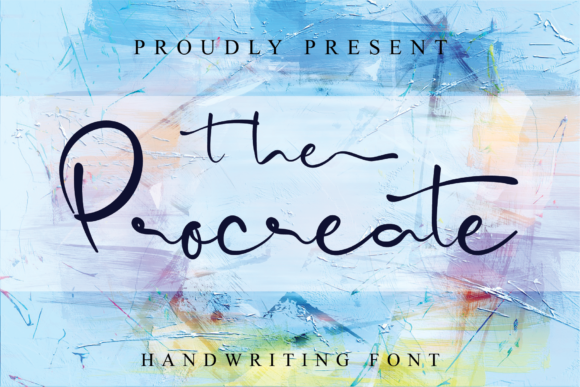
About The Procreate Font
The Procreate is a delightful and enchanting cursive script font that exudes a sense of sweetness, charm, and elegance. Its flowing and graceful letterforms captivate the eye and lend a touch of sophistication to any design. With its stylish alternates and ligatures, this font offers endless creative possibilities and versatility, making it the perfect choice for a wide range of projects.
Whether you’re working on wedding invitations, branding materials, logo designs, or any other creative endeavor, The Procreate will effortlessly elevate your work and add a touch of refined beauty. Each letter has been meticulously crafted to ensure a harmonious flow and impeccable readability.
The font’s extensive character set and stylistic variations provide ample opportunities for customization, allowing you to create truly unique and personalized designs. Its smooth curves and elegant swashes add a sense of whimsy and romanticism, making it an ideal font for conveying heartfelt messages and creating memorable experiences.